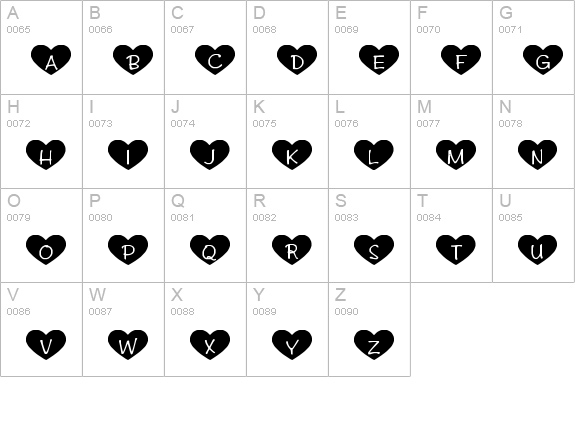
HeartAttack Font Details
Introducing HeartAttack font, a bold and captivating typeface that will leave a lasting impression on any project. With its unique and edgy design, HeartAttack font is perfect for adding a touch of personality and attitude to your designs. This font exudes confidence and strength, making it an ideal choice for anything from headlines and logos to posters and social media graphics. Its bold and sharp letterforms command attention, ensuring your message stands out from the crowd. But what makes HeartAttack font even more appealing is that it is completely free. Yes, you read that right - this stunning font is freely available to download at FontsMarket.com. Now you can elevate your designs without breaking the bank. Whether you're a professional designer or someone looking to add a little flair to their personal projects, HeartAttack font is a must-have in your font collection. Its versatility and eye-catching aesthetic make it suitable for a wide range of creative endeavors. So why wait? Download HeartAttack font now and unleash its powerful impact on your designs. Get ready to make a statement with this bold and free font that will leave a lasting impression on anyone who encounters it.